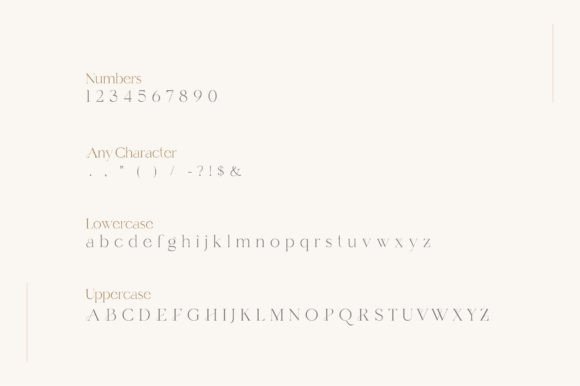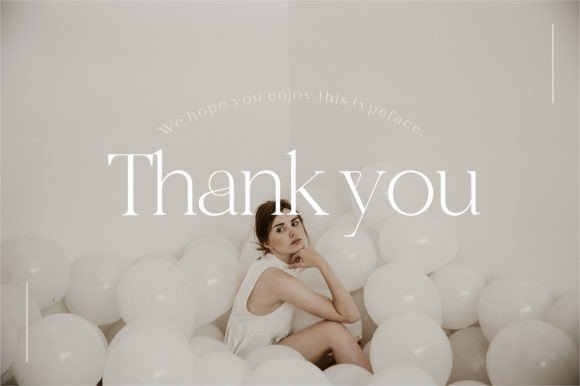
Introduction to Maviste Font
Imagine you’re working on a high-end branding project, and you need the perfect font to elevate your design to the next level. You’re scrolling through your design resources, searching for that one font that will make your project shine. And then, you stumble upon the Maviste Font – a modern classic lettering font that exudes elegance and sophistication. With its sleek, minimal design, the Maviste Font is the perfect addition to any creative project, from digital signage to wedding invitations.
Key Features of Maviste Font
- High-quality design resource ideal for creative projects, offering a unique and stylish look.
- Designed to be versatile and adaptable, making it suitable for a wide range of creative projects and applications.
- Includes a comprehensive character set, including uppercase and lowercase letters, numbers, and punctuation marks.
Honest Review: Maviste Font
As a designer, I’m always on the lookout for high-quality design resources that can elevate my creative projects. Recently, I had the chance to work with the Maviste Font, and I’m excited to share my honest review with you.
- ✨ High-quality typography: The Maviste Font is a beautifully crafted font with a clean and modern design.
- ⚠️ Limited character set: While the font is beautifully designed, it’s limited to a specific character set, which may not be suitable for all projects.
- ⚠️ Not ideal for large text: Due to its delicate design, the Maviste Font may not be the best choice for large text or headings.
Overall, I’m impressed with the Maviste Font’s high-quality design and free download option. While it may have some limitations, it’s an excellent resource for designers looking to add a touch of elegance to their creative projects.
Tips for Getting the Most Out of Maviste Font
To get the most out of the Maviste Font, try pairing it with a high-quality image or background to create a visually striking design. You can also experiment with different font sizes and styles to add depth and interest to your creative project.
Common Use Cases for Maviste Font
The Maviste Font is perfect for a variety of creative projects, including social media graphics, blog posts, and presentations. Its high-quality design and transparent background make it ideal for overlaying text on images or backgrounds, adding a professional touch to your designs.